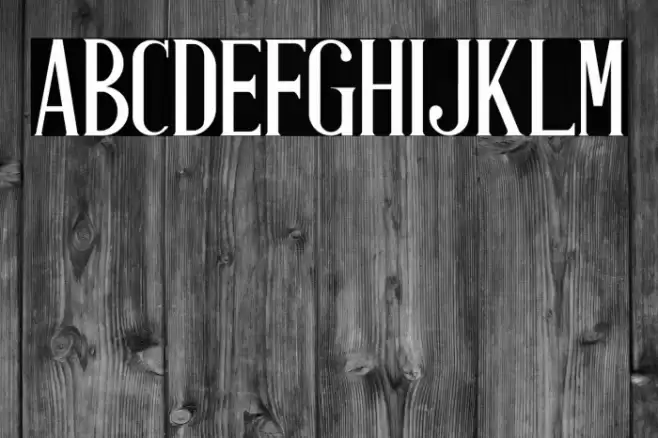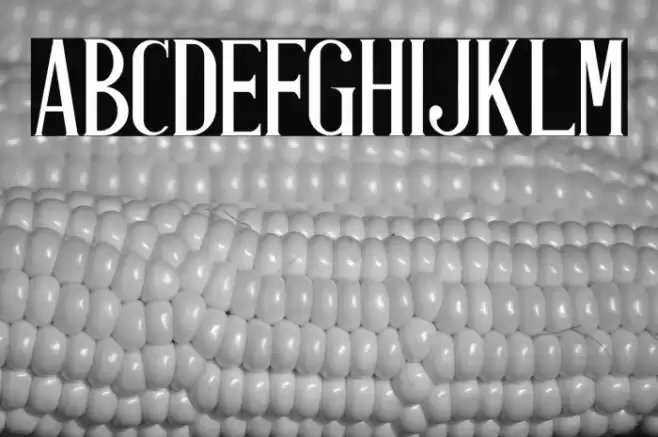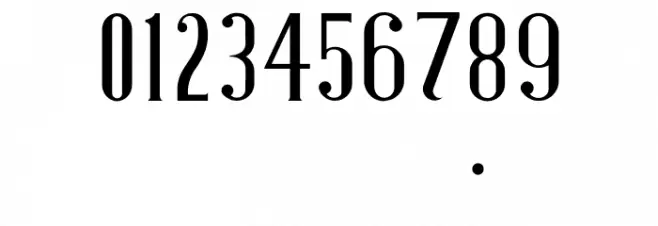
Antique Book Cover Font
Antique Book Cover Description
This font features a classic and elegant design with a distinct vintage flair. The uppercase letters are tall and narrow, with a slight curvature that adds a touch of sophistication. The lowercase letters maintain a consistent style, with some characters exhibiting unique flourishes, such as the 'g' and 'j'. The numerals are well-proportioned and align seamlessly with the overall aesthetic. This font's design is reminiscent of early 20th-century typography, making it ideal for projects that require a historical or antique touch.
A vintage-inspired font with elegant, narrow characters and unique flourishes from Uncategorized fonts.
- Font: Antique Book Cover
- Proposed Projects: Ideal for book covers, vintage posters, branding for historical-themed products, and elegant invitations.
- Overall Style: Vintage
- Use Case: Headlines, Logos, Book covers